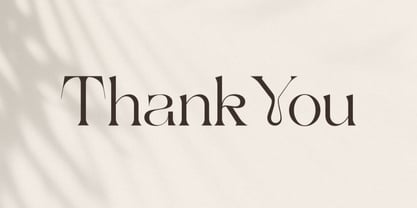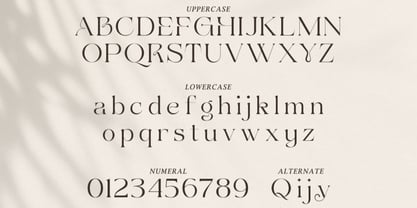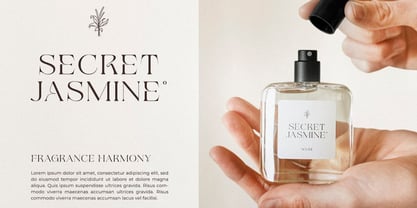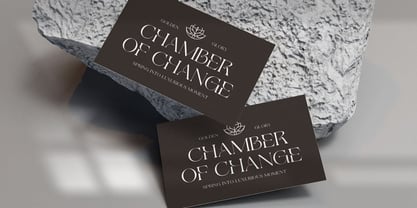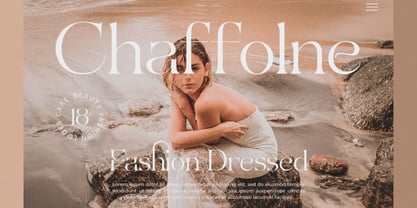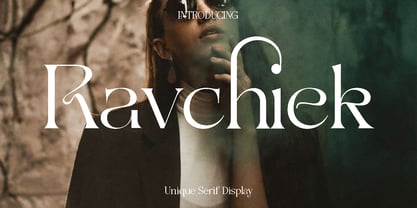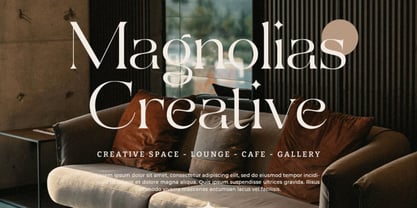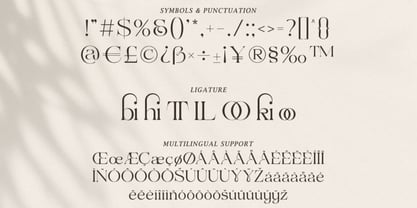
Ravchiek
by Only Fonts
The Ravchiek Font Family was designed by Olivia Love and published by Only Fonts. Ravchiek contains 1 styles. More about this family
Ravchiek – Elegant Serif Typeface Ravchiek is an elegant serif typeface designed to capture the beauty of timeless typography. Inspired by classic editorial styles and refined luxury branding, Ravchiek blends graceful curves with balanced proportions to create a sophisticated visual voice. Each letterform has been carefully shaped to deliver a harmonious rhythm, allowing text to feel both expressive and highly readable. This typeface shines in projects that require elegance and prestige. Ravchiek is perfect for luxury branding, fashion labels, editorial layouts, book covers, wedding invitations, certificates, and high-end packaging. Its refined personality also makes it ideal for social media visuals and logos where a polished and professional impression is essential. Whether used in bold headlines or delicate typographic compositions, Ravchiek adds a sense of confidence and class. Ravchiek feels graceful, warm, and distinguished, bringing a classic atmosphere while remaining versatile enough for modern design needs. Designers who want to communicate sophistication and timeless beauty will find Ravchiek an essential addition to their font collection, helping every project stand out with elegance and clarity. Ravchiek Font Features: • Uppercase and lowercase • Symbols and punctuation • Numerals • Ligatures and alternates • Multilingual support
Designers: Olivia Love
Foundry: Only Fonts